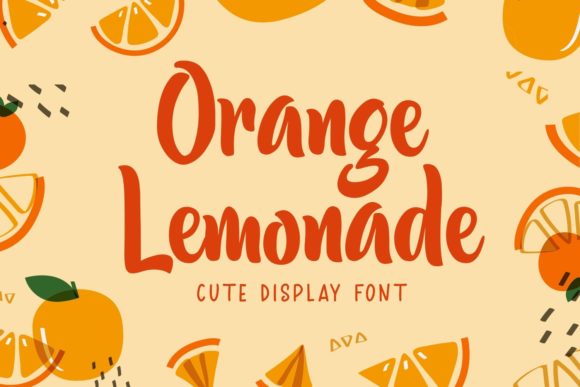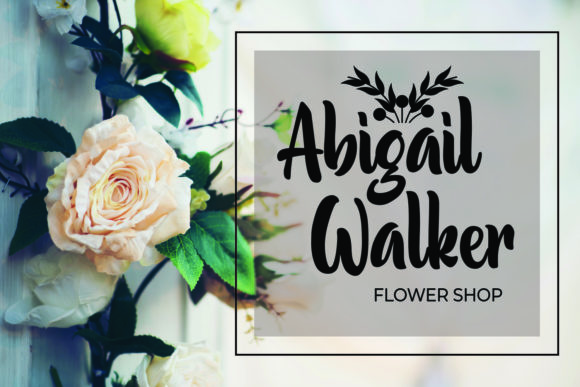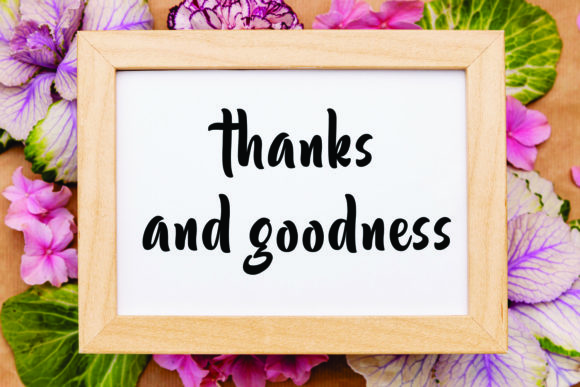
Orange Lemonade is a cute and casual handwritten font with an incredibly friendly feel. It will add an incredibly joyful touch to your designs. Add Orange Lemonade to each of your creative ideas and notice how it makes them stand out!